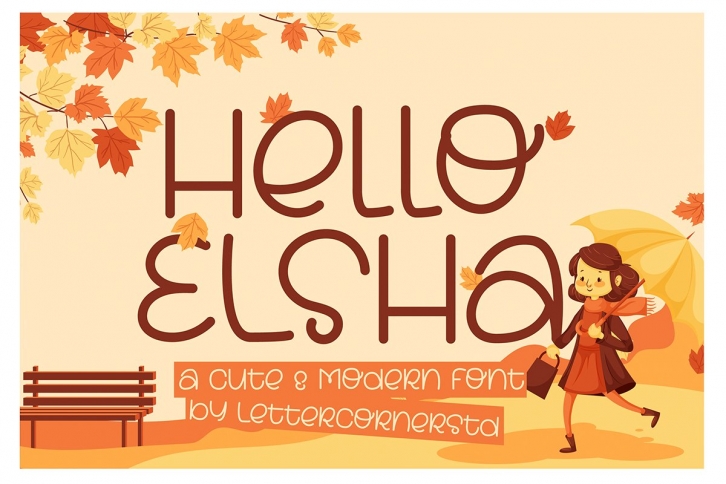
HELLO ELSHA is a trendy and unique font with an authentic style. It was designed by Mevricks Studio and it's a great choice for creative people who need such a font. It was released on December 15, 2021 and the file size is 5.84 MB. HELLO ELSHA will add an organic vibe to any design idea!